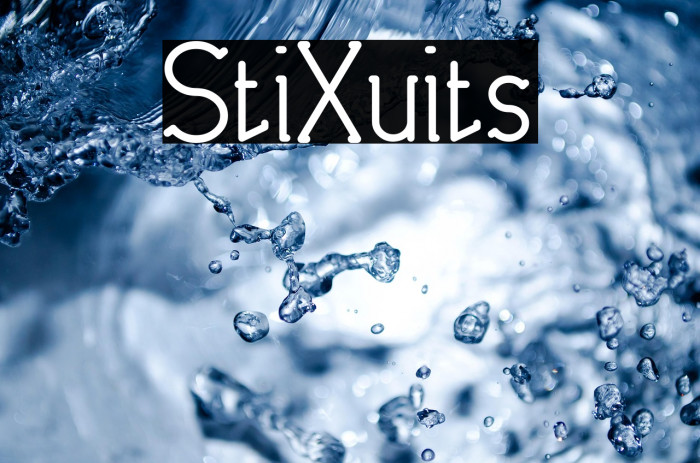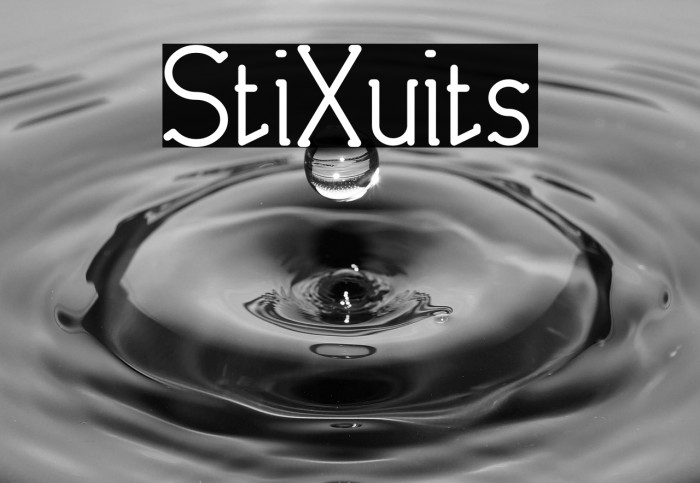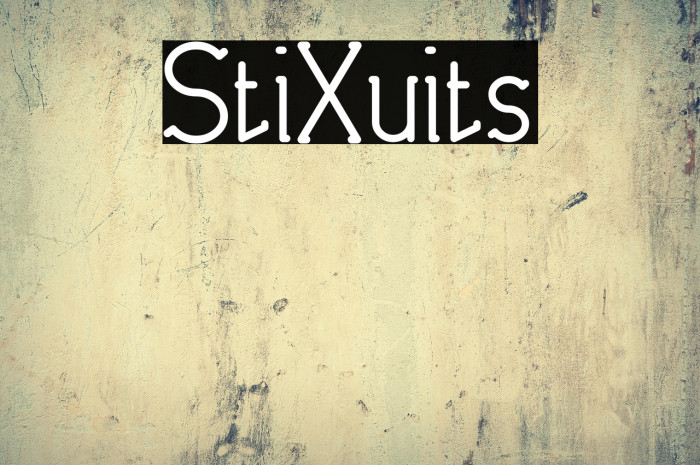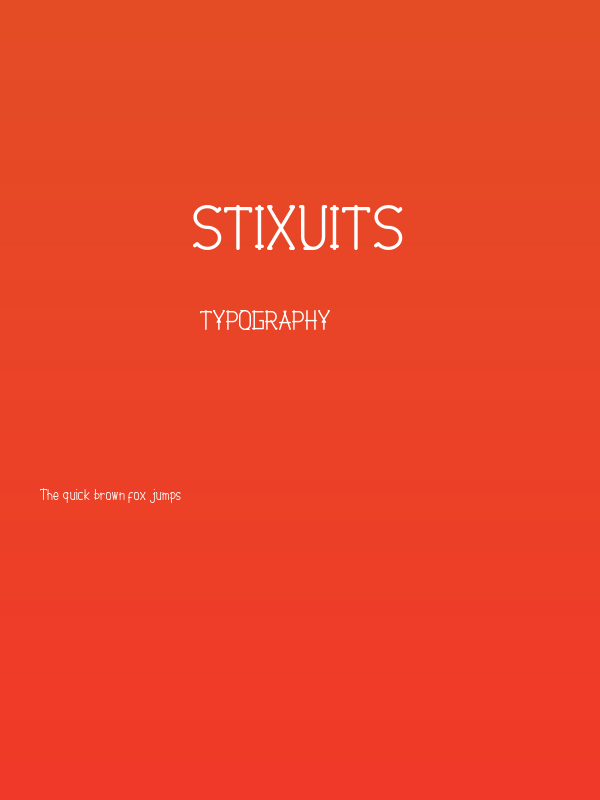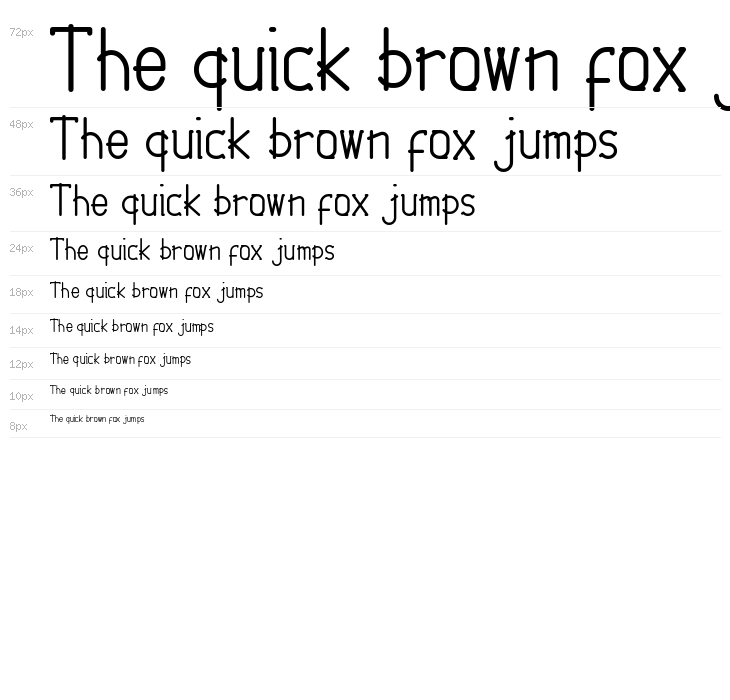
StiXuits Font
StiXuits Description
This font features a unique and playful design with a handwritten, whimsical style. The characters are composed of thin, consistent strokes with rounded ends, giving them a friendly and approachable appearance. The uppercase and lowercase letters maintain a consistent height, contributing to a uniform look across the text. The numerals and special characters follow the same design principles, ensuring coherence throughout. This font's distinctive style makes it stand out, while its readability remains intact, making it suitable for various creative applications.
| Use Case | Logos, Posters, Creative projects |
| Proposed Projects | Ideal for children's books, playful branding, greeting cards, and creative posters. |